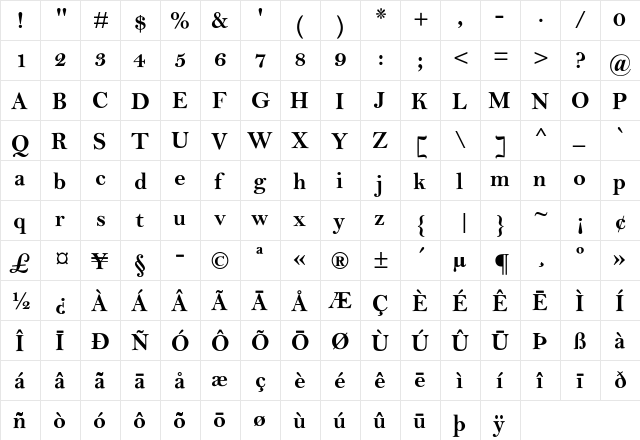
MBell-Bold Maori Regular
Design Context for MBell-Bold Maori Typeface
MBell-Bold Maori is a composed and adaptable typeface that performs quietly and consistently across a wide range of design contexts. The heavy weight commands attention and anchors typographic hierarchies.